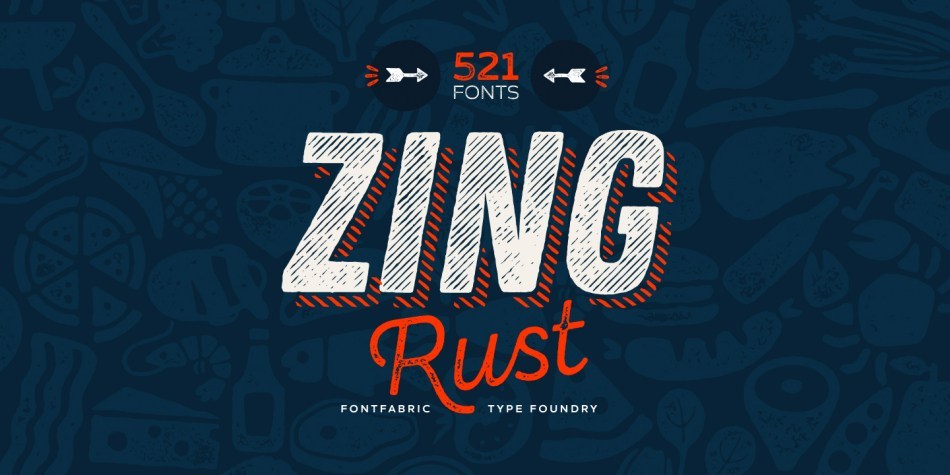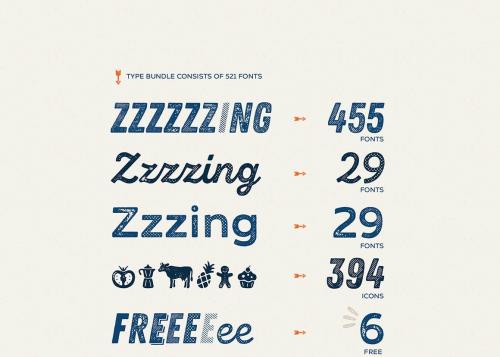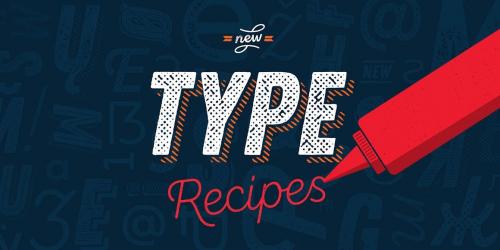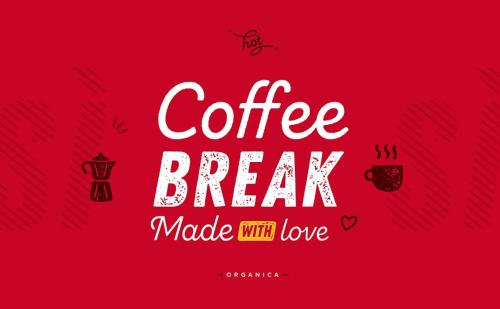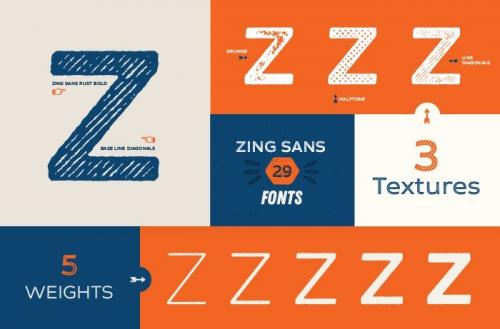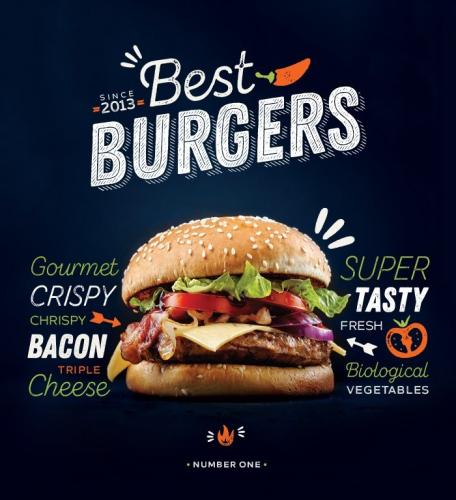
Very great, it was my original feel, a family of fonts designed professionally and very carefully. It is perfect for all your design projects. Introducing Zing Rust Font Family! Zing Rust is a typeface family designed by Svetoslav Simov and Jacklina Jekova.
Zing Rust is extremely huge package of outstandingly handmade 521 fonts! As it’s name refers Zing Rust™ stands for the vital freshness of your ideas and bold designs.
It includes the 4 (four) major sub-families Zing Rust™, Zing Script Rust™, Zing Sans Rust™ and Zing Goodies Rust™, with the leading star Zing Rust and special mention of Zing Script Rust having fully functional OpenType features and contextual alternates.